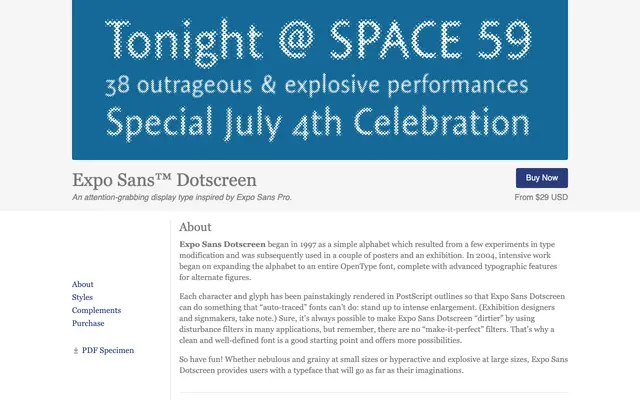
Expo Sans™ Dotscreen
A single-weight dotscreen display font derived from Expo Sans Pro, rendered in clean PostScript outlines so it scales without degradation to exhibition or signage sizes.
Originally conceived in 1997 as an experimental alphabet for posters and an exhibition, Expo Sans Dotscreen was developed into a full OpenType font in 2004. Every glyph is hand-drawn in PostScript outlines rather than auto-traced, meaning the halftone dot pattern holds up under extreme enlargement — a deliberate advantage for exhibition designers and signmakers. The font includes four figure variants via OpenType features, and its clean construction allows users to add distortion effects from a reliable starting point rather than working with pre-degraded artwork.
A dotscreen-patterned display typeface derived from Expo Sans Pro, rendered with halftone-style texture; firmly in the display category as its decorative treatment renders it unsuitable for text use.